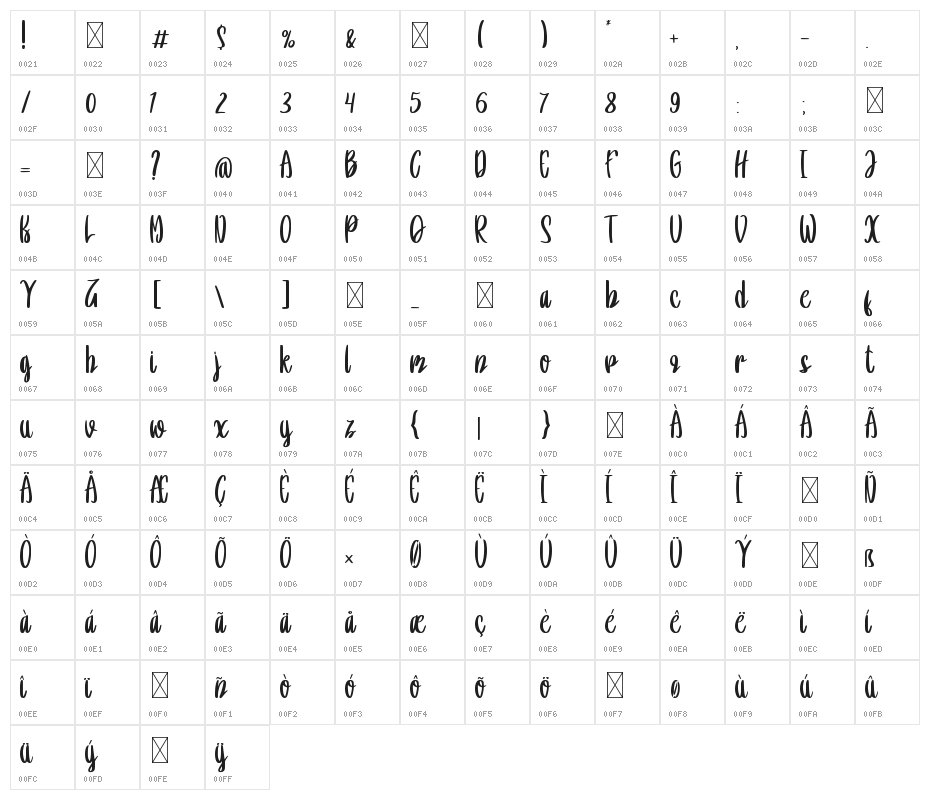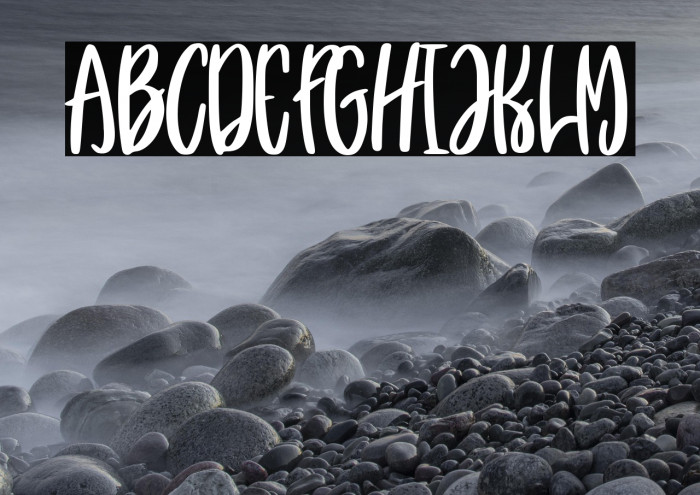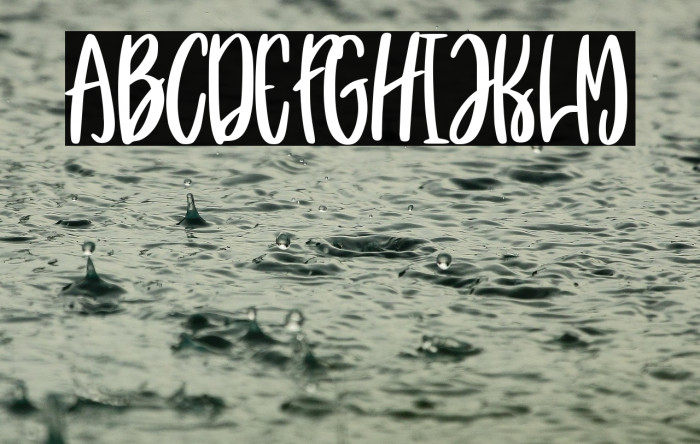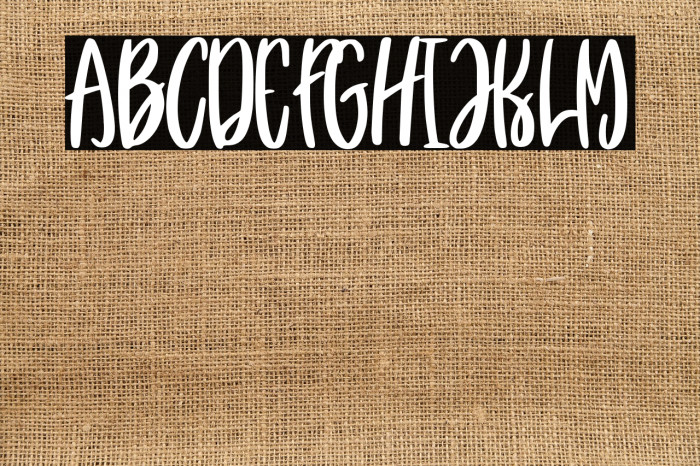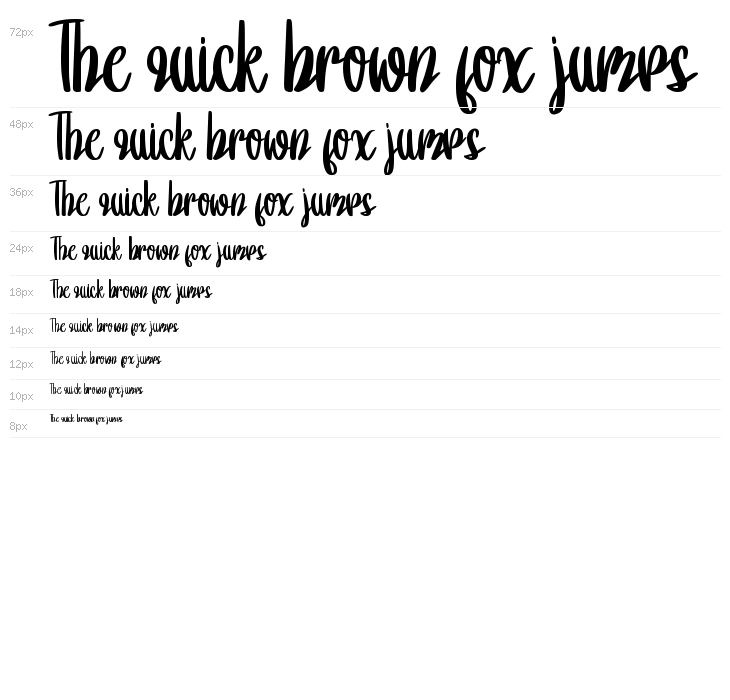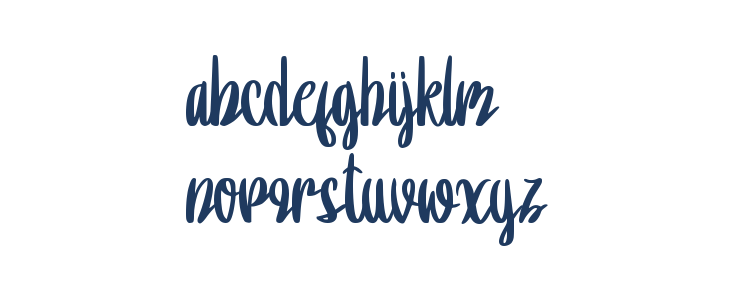
Beleriand Font
Beleriand Description
This font features a lively and dynamic script style, characterized by its flowing, cursive letterforms. The uppercase letters are bold and expressive, with a playful yet elegant flair. The lowercase letters maintain a consistent rhythm, adding a touch of sophistication. The numerals are clear and legible, complementing the overall style. Special characters are creatively designed, enhancing the font's versatility. This font exudes a sense of creativity and energy, making it suitable for a variety of design projects.